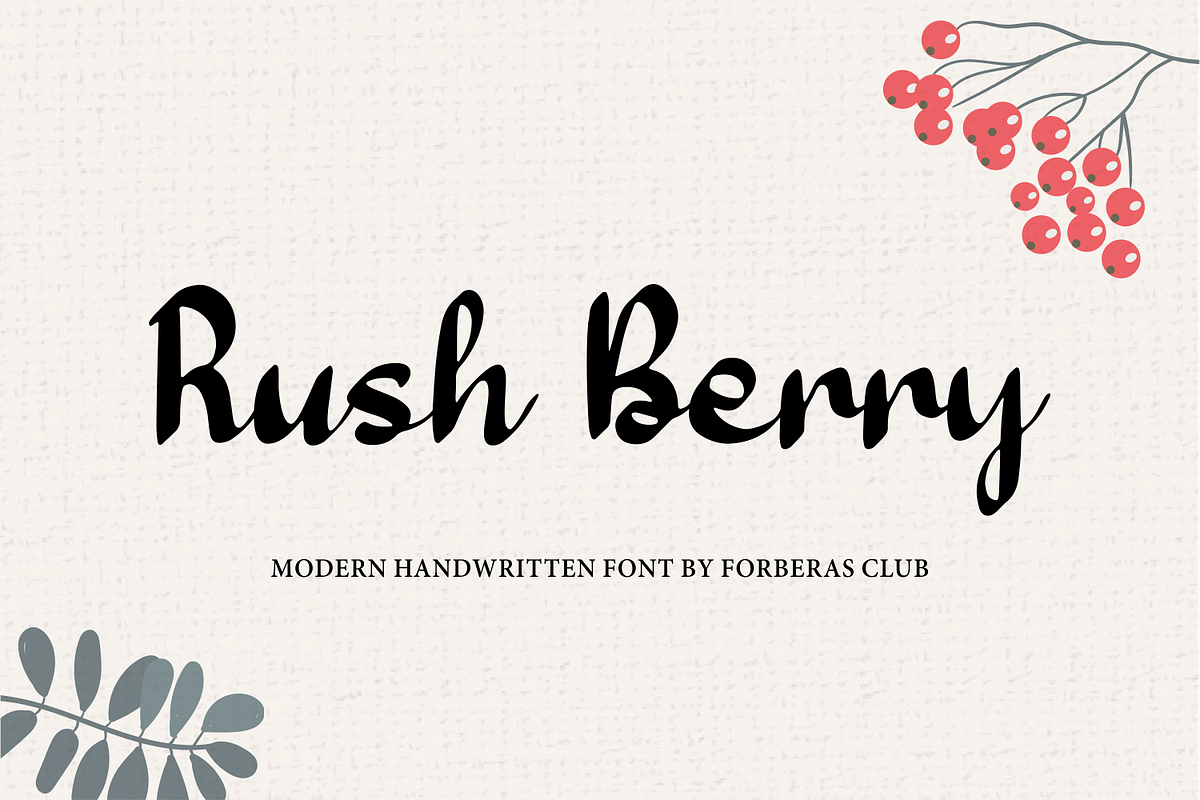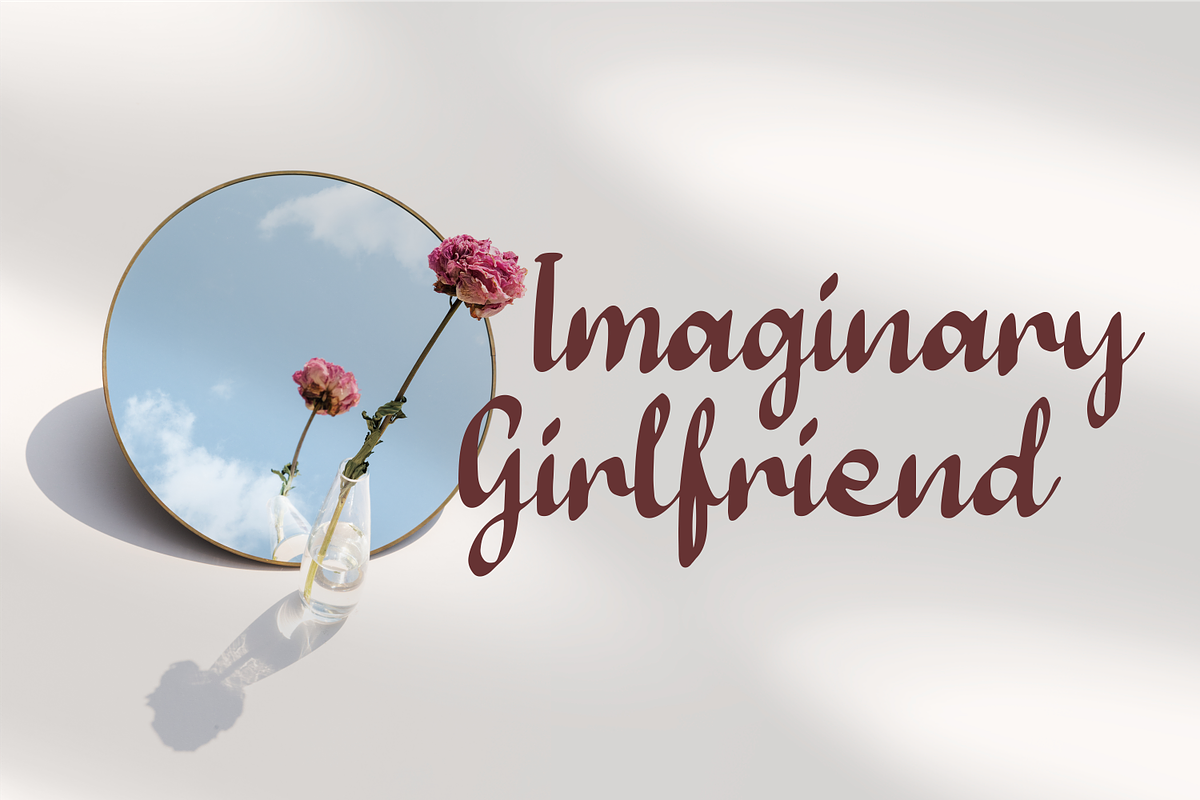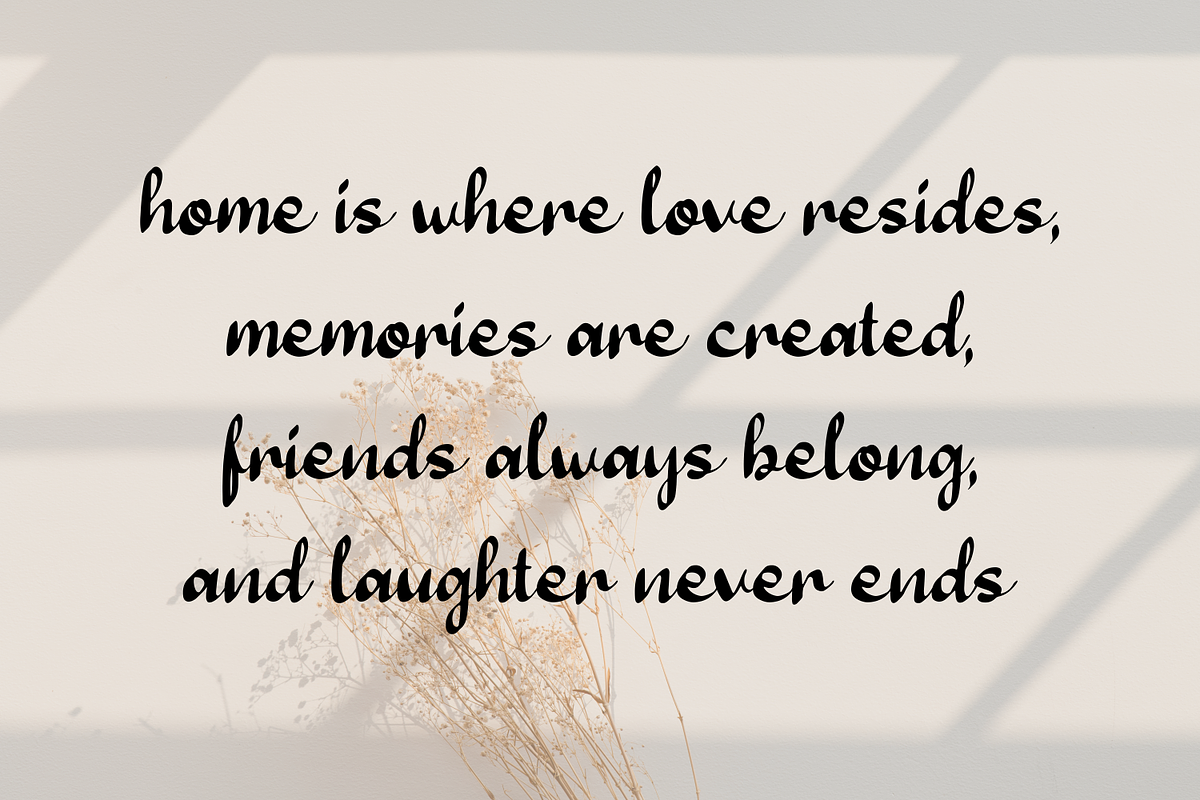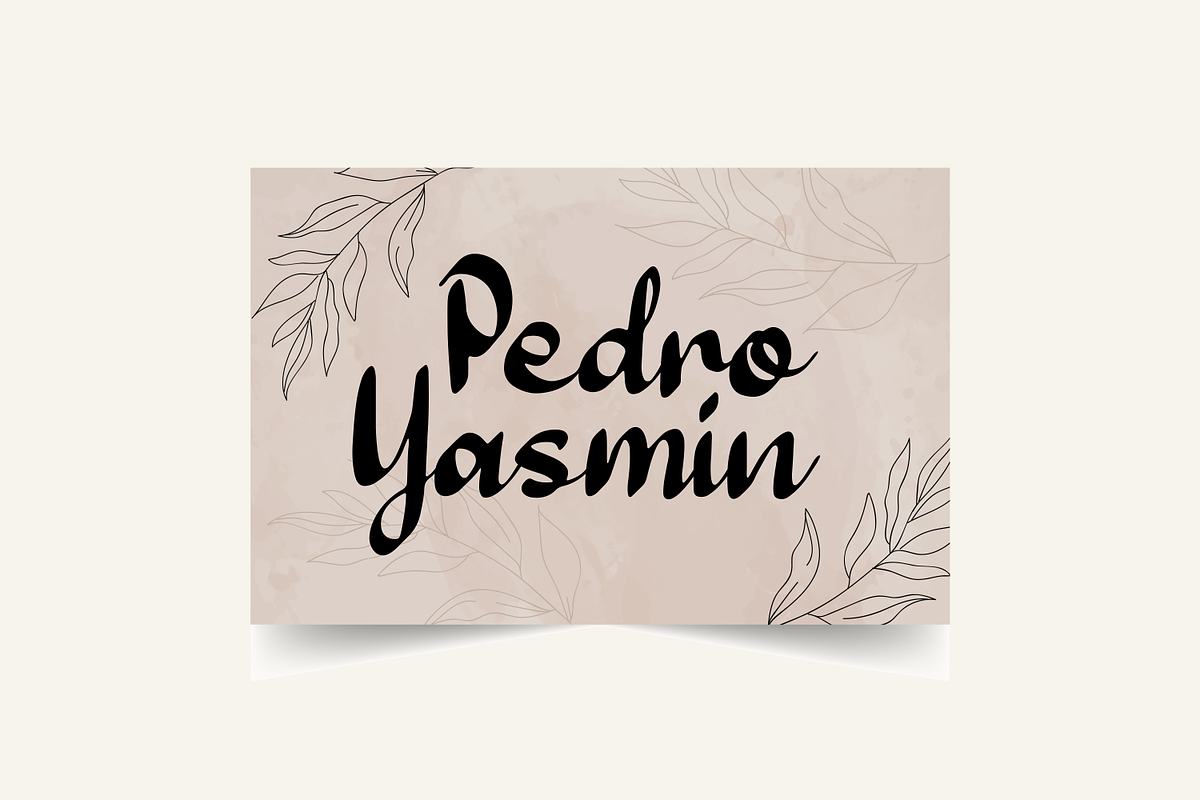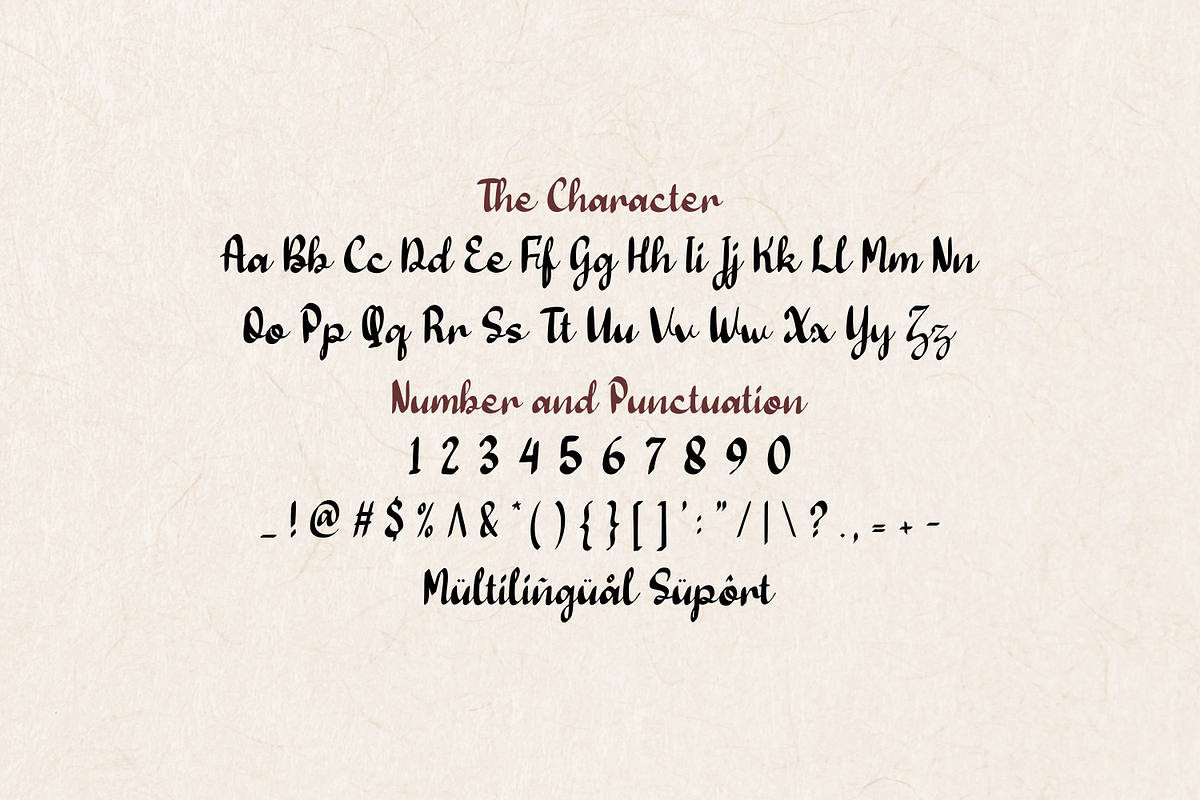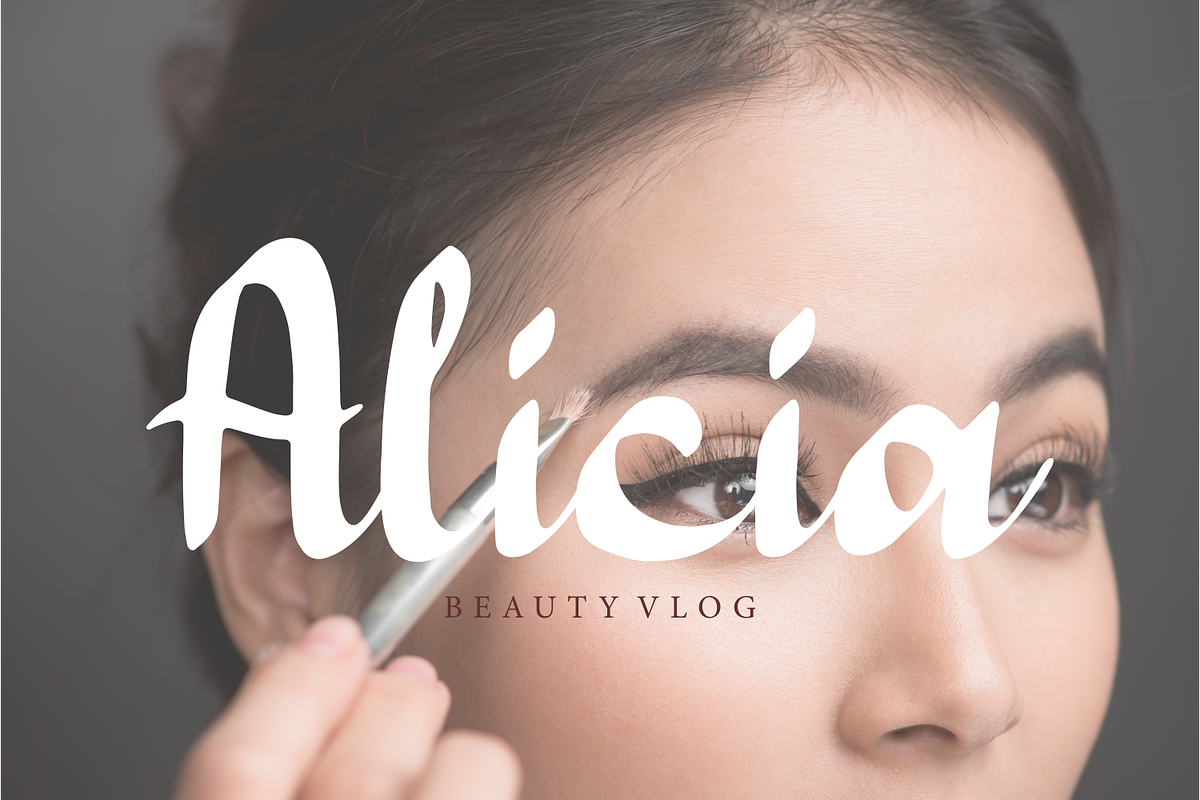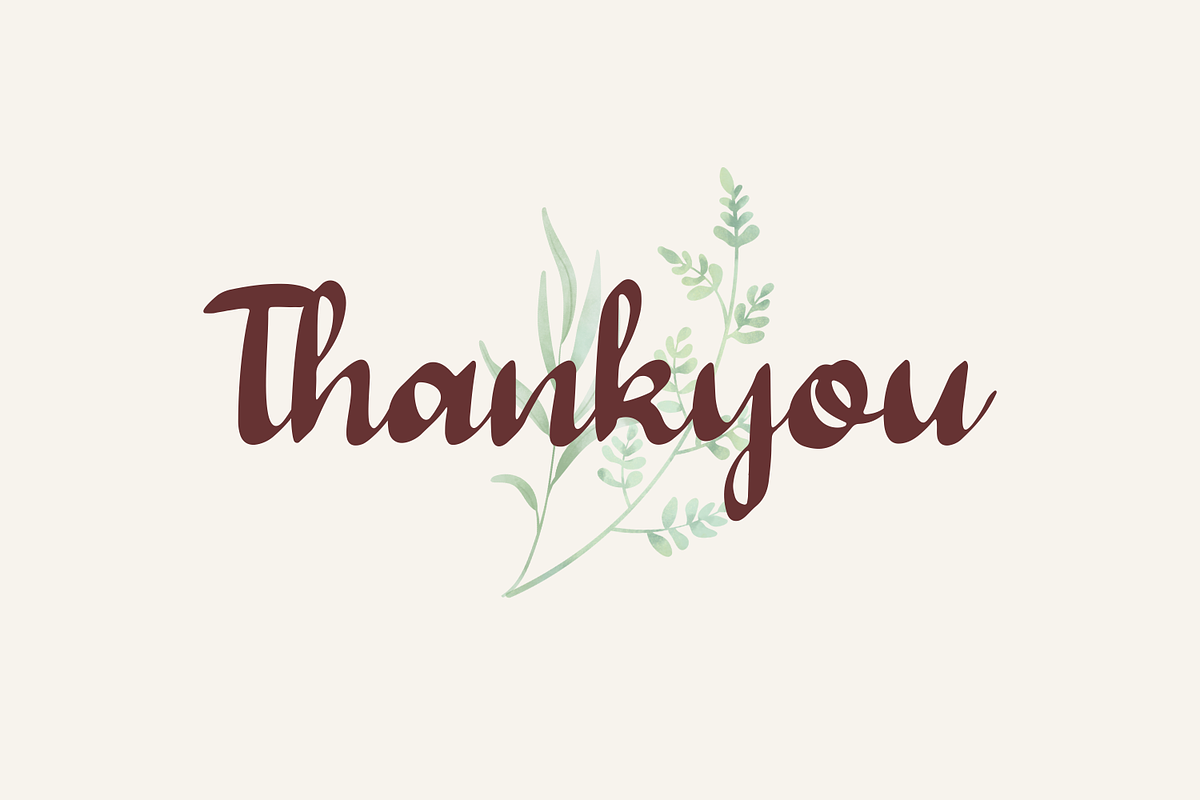
Rush Berry
Introducing Rush Berry by Forberas
Modern and beautiful handwritten script font! Great for wedding greeting cards, logos, branding materials, Invitation, business cards, quotes, posters, Cricut artwork and more!